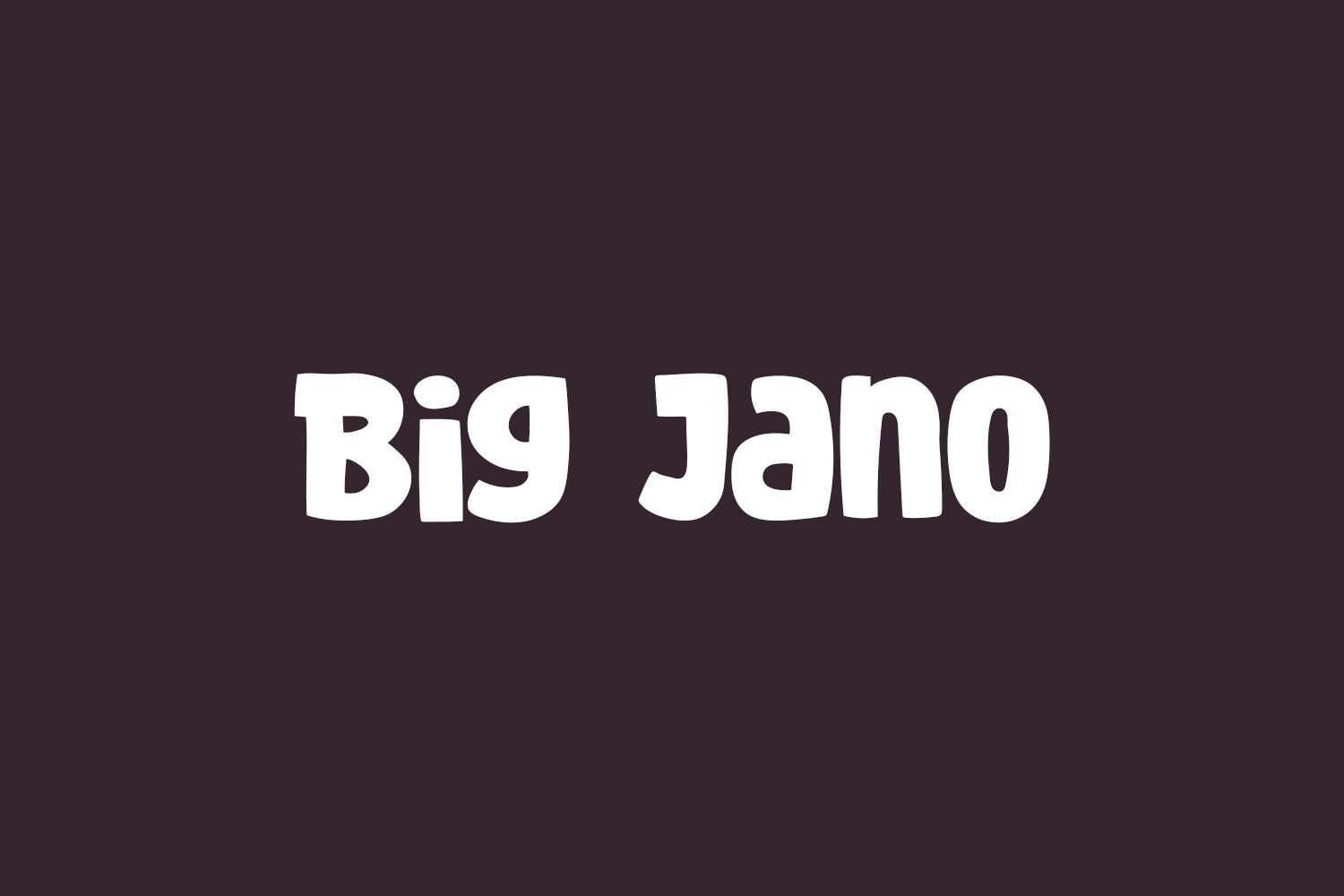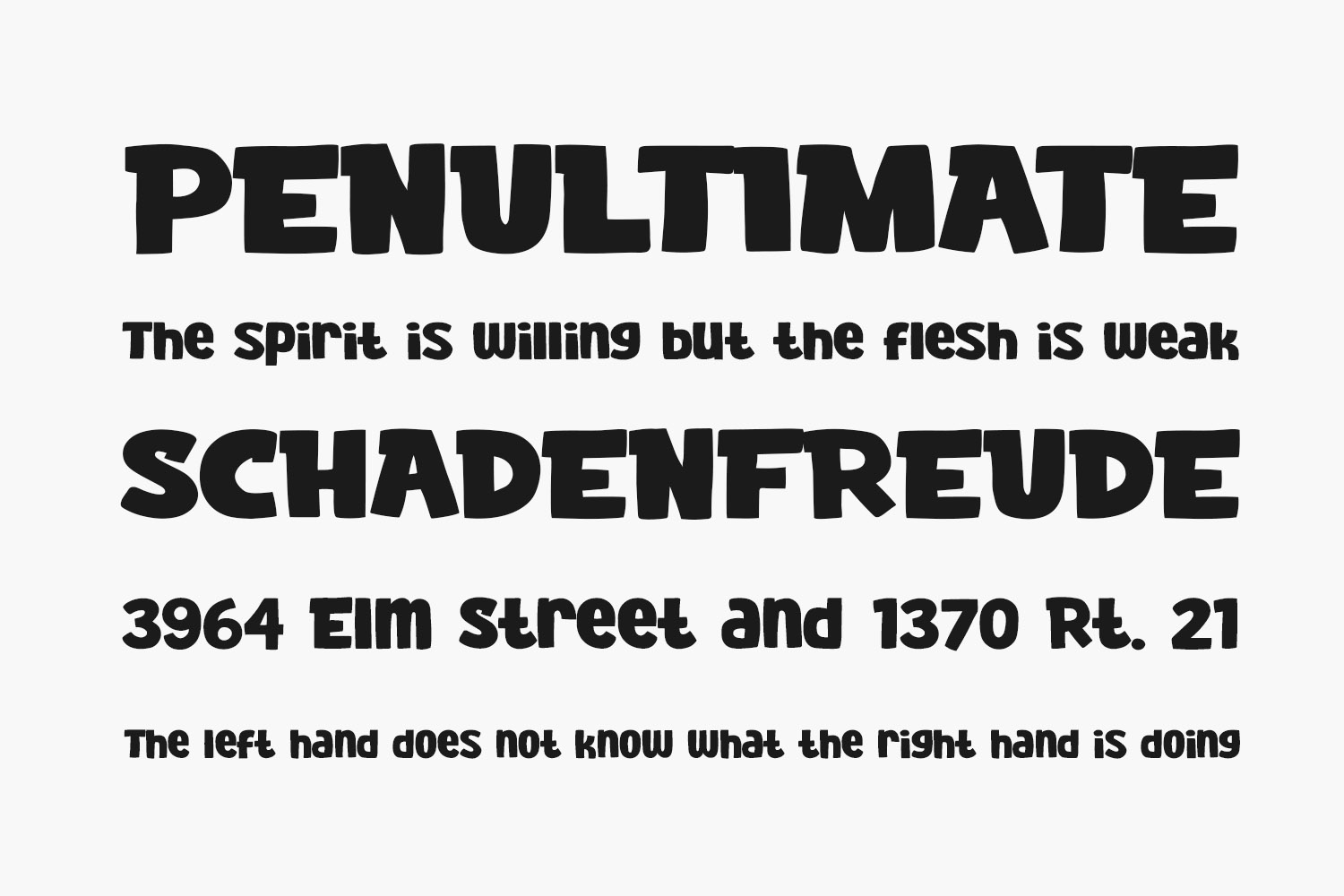
Big Jano Free Font is a bold and fun display font. Whether you are using it for cartoon-related designs, children games, quotes, titles, brand names, book covers, posters, or just any creation that requires a touch of joy, this font is a great choice. Big Jano Free Font was designed by Tokopress and is free for personal use only. Please purchase the full version for commercial use.
Designed by Tokopress